5 Types of Fonts and Their Use in Design
Types of Fonts
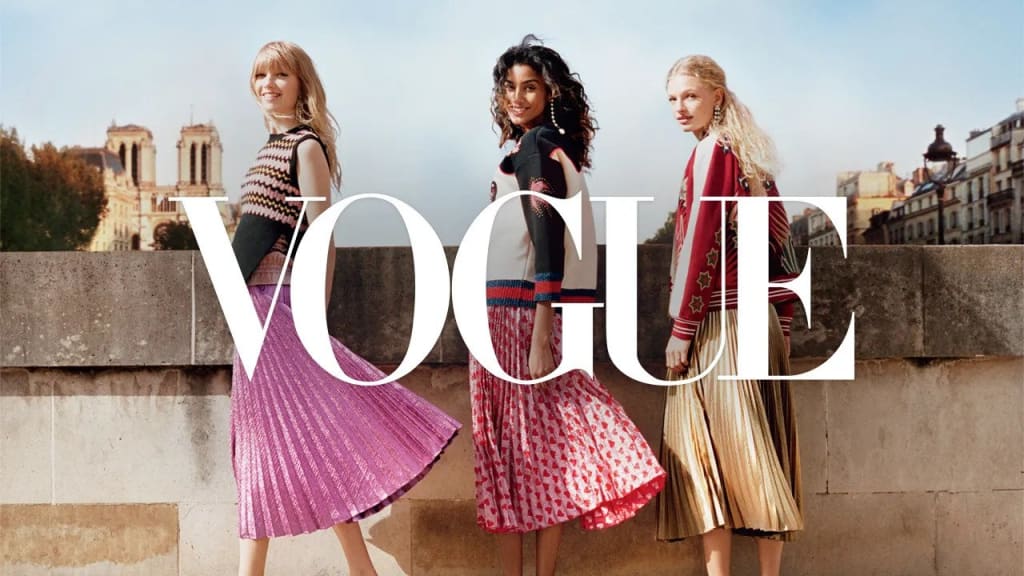
All brand and UI designers must know typography and typeface classifications. Various kinds of fonts are available that can elevate your design and be chosen from the meaning. Thus, read our article to learn more about types of fonts and how to use them in your design.
Types of Fonts Styles and When to Use Them
Knowing each font and its characteristics is important to identify the right font for your design. The font styles are divided into five main fonts: the Serif, Sans Serif, Slab Serif, Script, and Decorative fonts.
Each style also has unique characters and different applications. Below is the information on each font:
1. Serif Fonts
The first fort style is Serif, the oldest and most basic in the book. This font is a classic type with various ways to use it, and it never goes out of style. Furthermore, serif has the characteristic features of small strokes and feet placed at each letter’s top and bottom.
In addition, there’s a myriad of serif-type fonts that you can choose from. But the most classic example of a serif font is Times New Roman, Vogue, and Mermaid. This font is also mostly found in many copies because it’s basic. However, it’s also used in brand logos emphasizing the timeless and formal touch like Vogue.
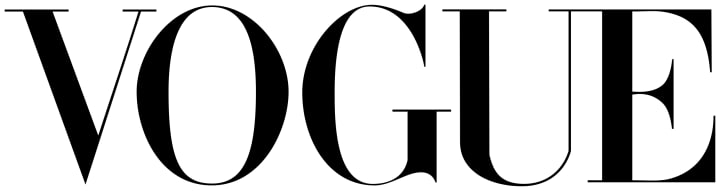
2. Sans Serif Fonts
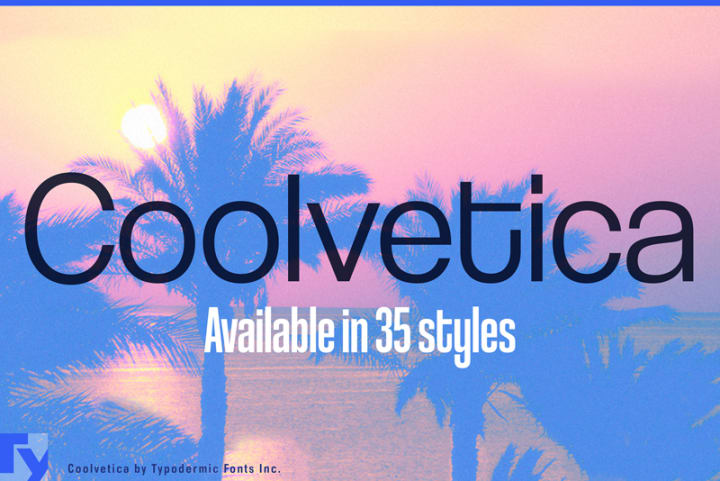
Next is Sans Serif, which has grown in fame in recent years. Basically, the main character of the fonts has no decorative finishing strokes. So, these types of fonts have the crispest, most simple, and most modern font style options. Its clean, sharp lines are also an ideal choice for reading text on the screen.
The contrast from the serif font is it’s a bit more casual and youthful. These types of font styles are also great for brands to appear relatable, contemporary, and laid-back. One of the most used Sans Serif fonts is Helvetica, Coolvetica, and Sherman in brand logos like Target, Jeep, Toyota, and Panasonic.
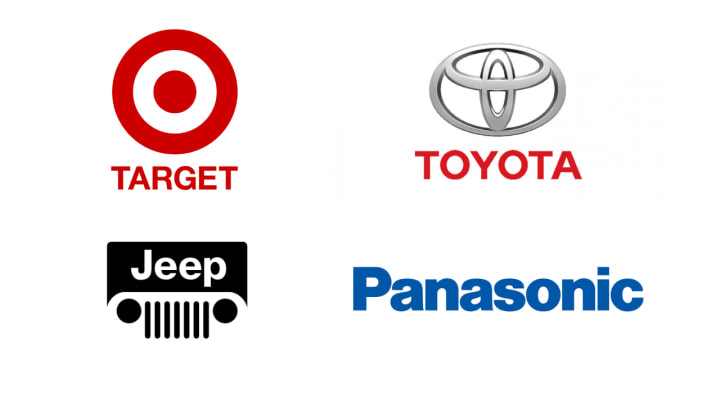
3. Slab Serif Fonts
The Slab Serif is like the squared-off and chunkier version of the Serif font. So, it’s more similar to the modern version of Serif font while still having the same readable, classic, and confident features. This font is usually used in long text pieces to emphasize vital words or phrases that work like a bold or italic.
Some examples of Slab Serif fonts are Rockwell and Kalela. It also used to give bold and dramatic statements that caught the viewers’ attention. Thus, these font styles are popular for companies with heritage and who want to look modern, like Honda, Volvo, Fargo, and Mozilla.
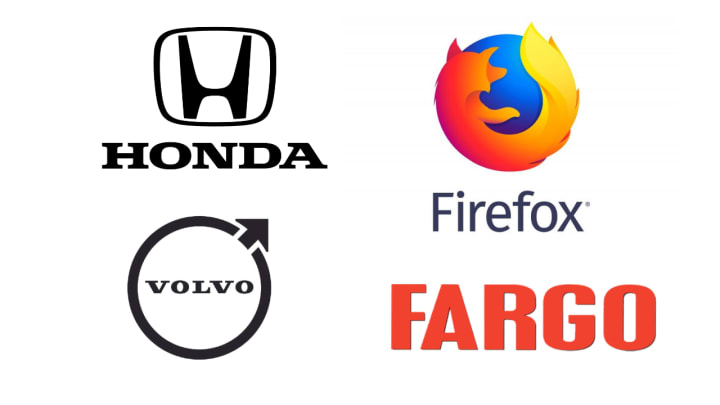
4. Script Fonts
Unlike all types of fonts above, Script font is a font style that uses a cursive handwriting style. This style can be formal and informal, but it will leave a strong presence. It also uses handwriting cursive lettering and features decorative curls, flourishes, and loops.
The Script is well-known for being unique, elegant, and remarkable. Usually, casual styles based on the script font are often used from trends. Some popular script fonts are Anteri Signature, Cream Cake, and Brittany. However, some brands successfully develop their own styles with memorable logos.
Despite those, the Script font is unsuitable for longer blocks of must-read text. Applying it for headings, logos, accent phrases, and other short text will be better. For logos, it can be elegant and whimsy with a bit of feminine touch for related brands. For instance, it is used by unique brands like Coca-Cola, Instagram, Ford, etc.
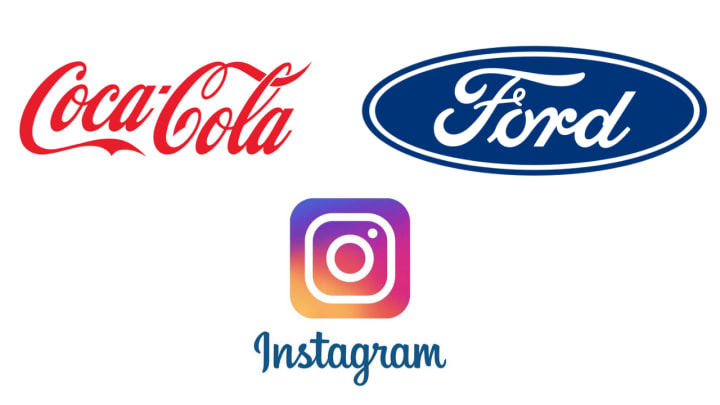
5. Decorative Fonts
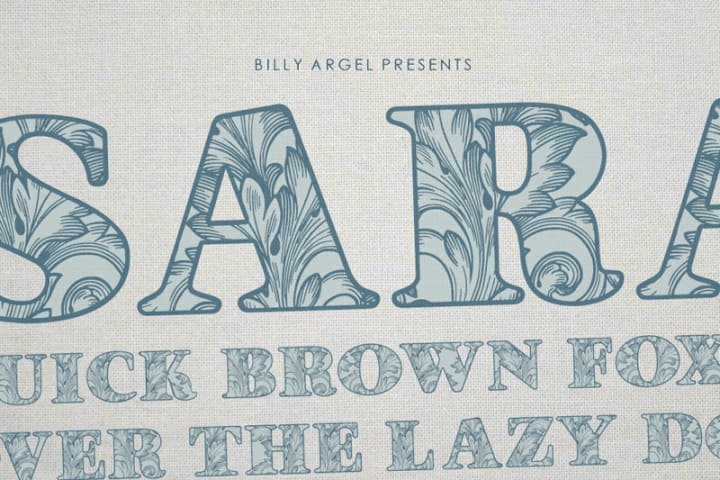
The last type of font is Decorative font which is dramatic and exceptional. This font combines the various styles and graphics that allow designers to experiment and create their own fonts. The examples encompass the Bangers, Sarah, Plante, and Hanging Letters.
This font is also remarkable since it has an overpowering impact and makes the whole piece look busy. Overall, this font conveys uniqueness and originality. It also includes causality, fun, and creative thought. Popular examples of this typeface are Seattle Kraken, Fanta, Lego, Disney, etc.
Determine the Proper Types of Fonts for Your Unique Design!